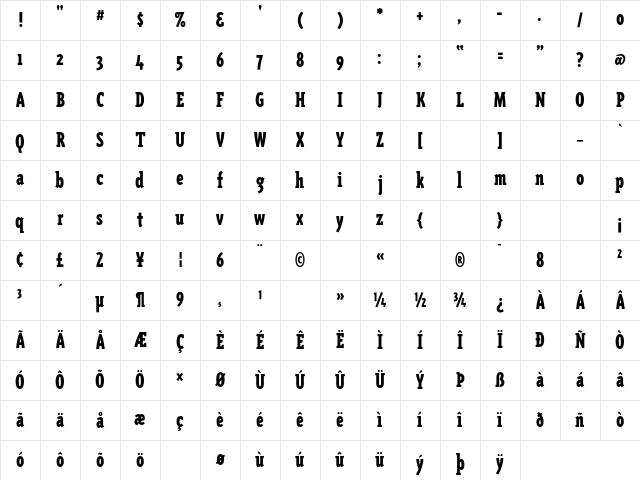
Complete TriplexCondSerifBlack Regular glyph index. Displaying only characters natively supported by TriplexCondSerifBlack Regular font.
TriplexCondSerifBlack carries the refined structure of traditional serif typography, with bracketed terminals and considered proportions that communicate credibility and craft. Its narrow stance lets it pack a punch even in space-constrained designs.